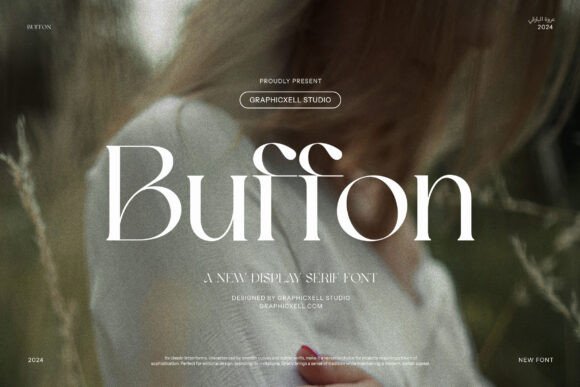
The Elegance of Buffon Font: A Designer’s Delight
A Personal Review: What I Love and What I Don’t
The Good, the Great, and the Lovely
- ✅ Premium quality: Buffon Font is crafted with attention to detail, ensuring a luxurious feel that’s perfect for high-end projects.
- ✅ Unique ligatures: The ligatures in this font make it stand out from regular serif fonts, adding a touch of sophistication to any design.
- ✅ Versatility: Whether you’re designing a logo, headline, or invitation, Buffon Font is an excellent choice.
- ✨ Elegant and refined: This font is perfect for projects that require a touch of luxury and sophistication.
The Not-So-Perfect, But Still Lovable
While Buffon Font is an exceptional typeface, there are a few minor quirks to be aware of:
The Story Behind Buffon Font
Buffon Font was designed with the goal of creating a sophisticated, luxurious typeface that would meet the demands of high-end design projects. Inspired by classic serif fonts, the designer aimed to create a unique and elegant font that would stand out in the world of typography.
| Font Name | Buffon Font |
| Author | Graphicxell |
Q: What makes Buffon Font unique?
A: Buffon Font’s unique feature is its ligatures, which set it apart from regular serif fonts and add a touch of sophistication to any design.
Q: Is Buffon Font suitable for body text?
A: While Buffon Font is elegant and refined, it’s primarily designed for headlines, titles, and short paragraphs. For body text, you may want to consider a more readable font.